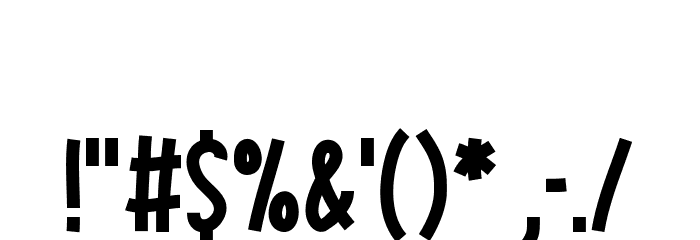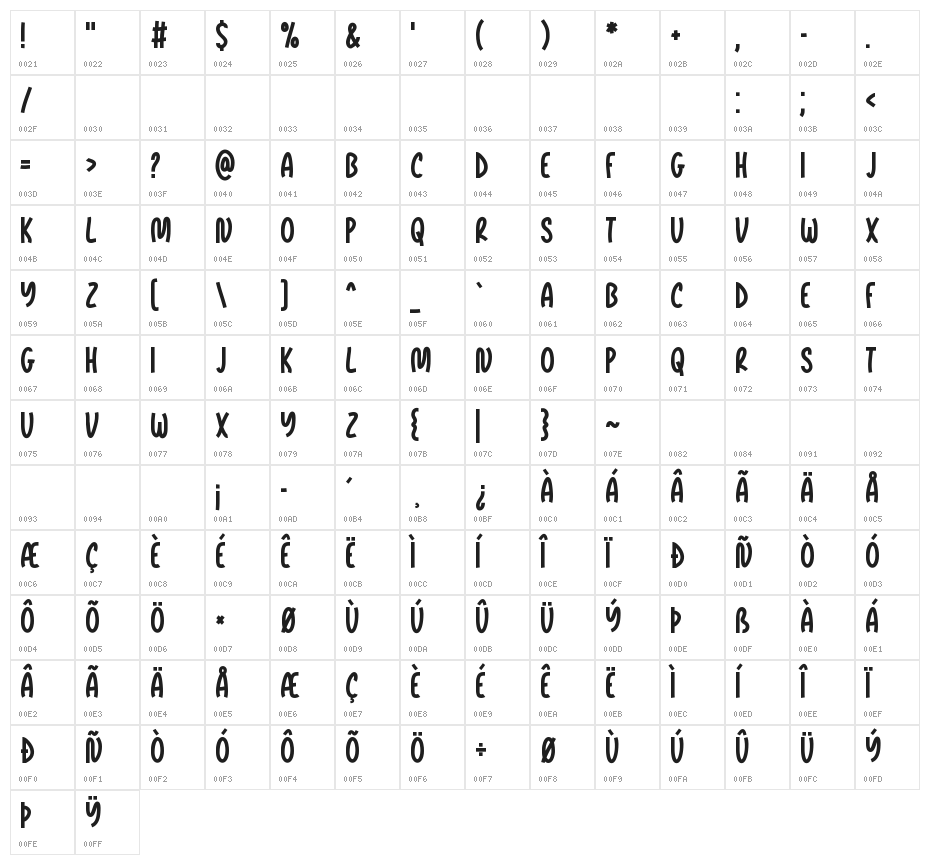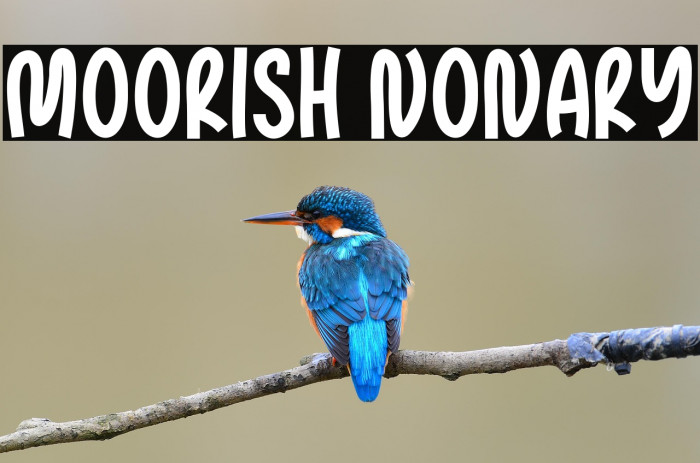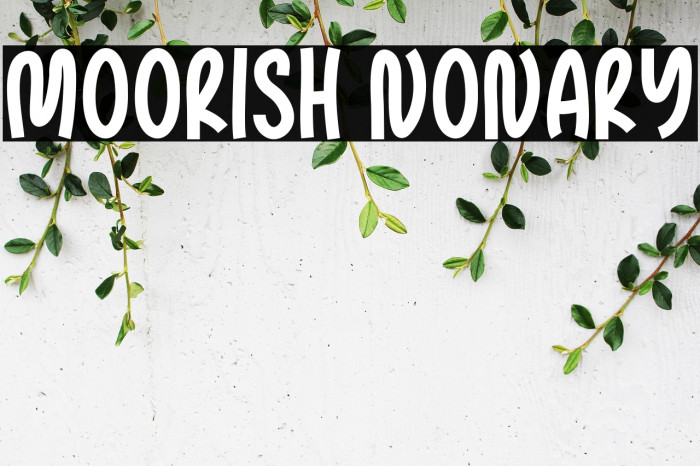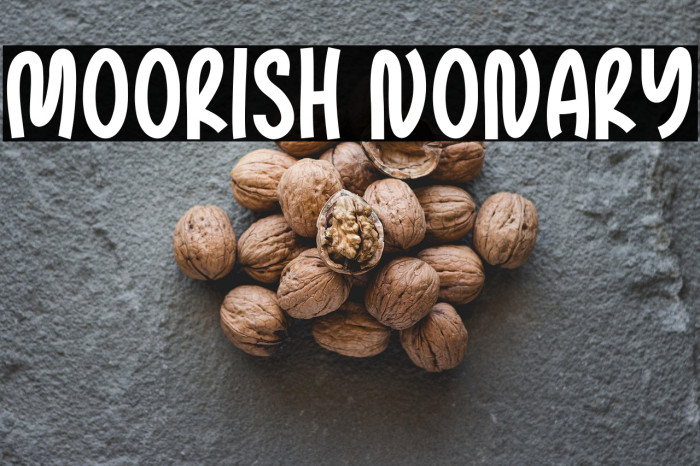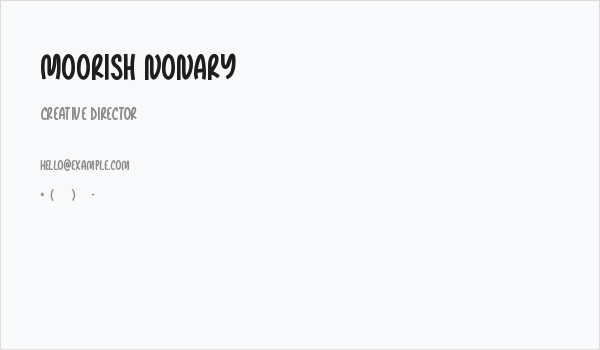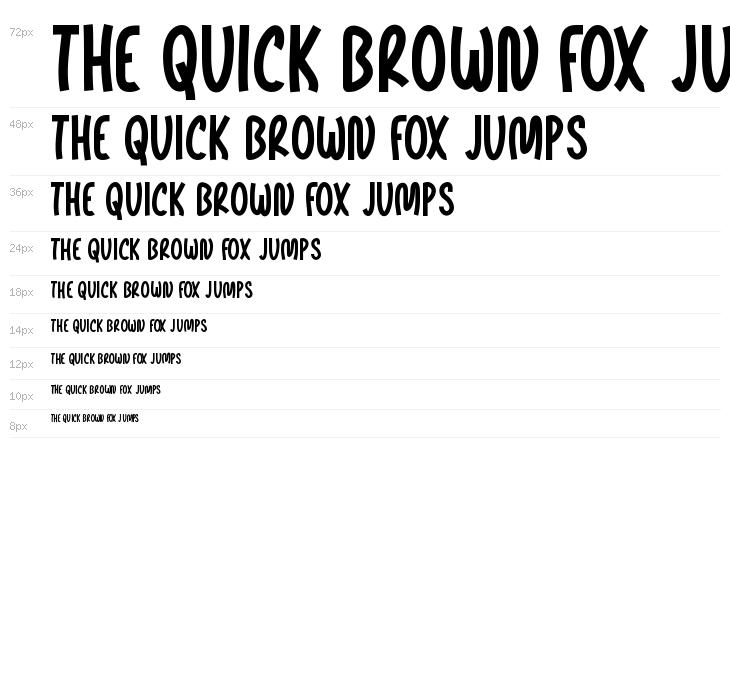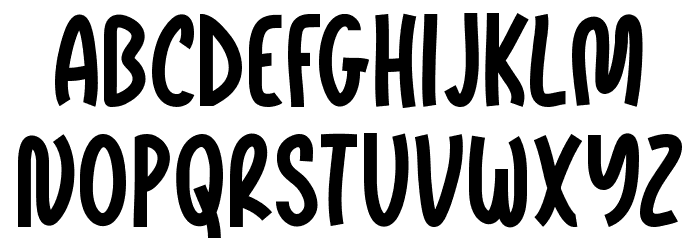
Moorish Nonary Font
Moorish Nonary Description
This font features a bold and playful design with a distinctive, slightly curved appearance that gives it a lively and energetic feel. The uppercase letters are robust and rounded, with a consistent stroke width that maintains readability while adding a touch of whimsy. The lowercase letters mirror this style, ensuring a cohesive look throughout. The numerals are equally bold, maintaining the same playful characteristics as the letters. Special characters are designed to match the overall aesthetic, making this font versatile for various uses. Its unique style makes it suitable for projects that require a fun and engaging typeface.